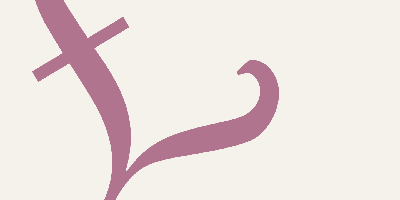
Setsuko Free Download
When it comes to elegant, artistic typography, the Setsuko Font Free Download stands out with its delicate curves and refined style. This font is designed to bring a sense of sophistication and charm to any creative project, whether you’re working on invitations, branding, editorial layouts, or social media graphics. Its unique and handcrafted feel makes Setsuko Font a favorite among designers who want to add a touch of originality to their work.
Setsuko Font is particularly well-suited for projects that require a personal and expressive tone. Its graceful strokes and beautifully balanced letters ensure readability while maintaining a distinct character. Whether used for large headlines or subtle body text, Setsuko Font captures attention without overwhelming the overall design.